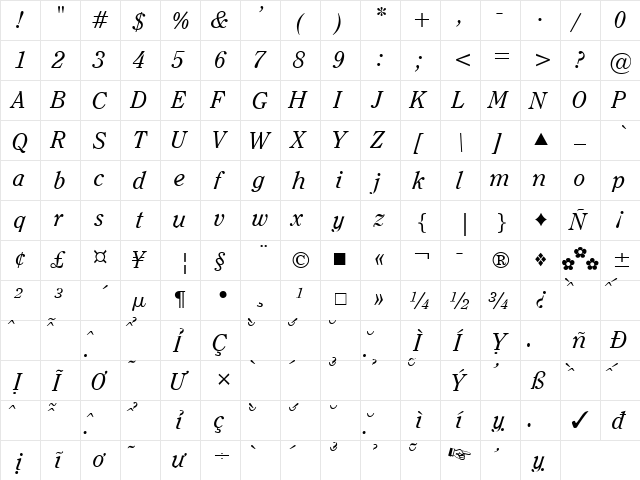
VNI-Oxford Italic
Design Context for VNI-Oxford Typeface
VNI-Oxford offers clean, dependable letterforms without strong stylistic allegiance, making it a practical choice for designers who need flexibility. The dynamic lean of this cut emphasises speed and emphasis in any layout.